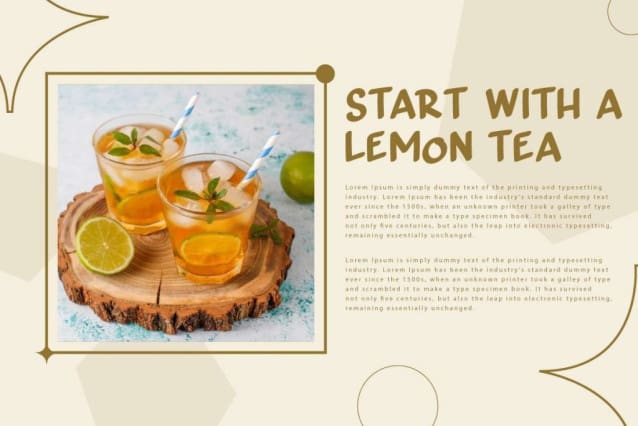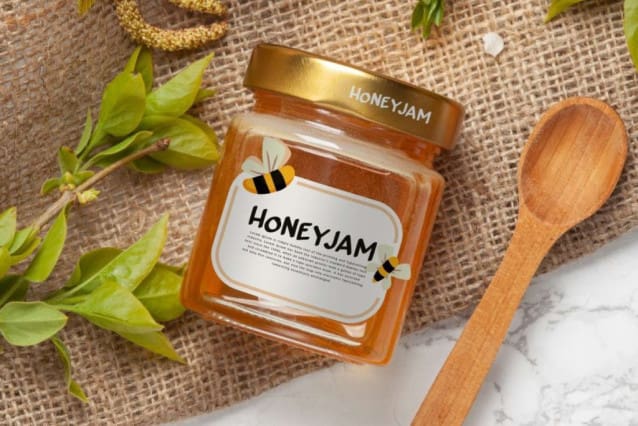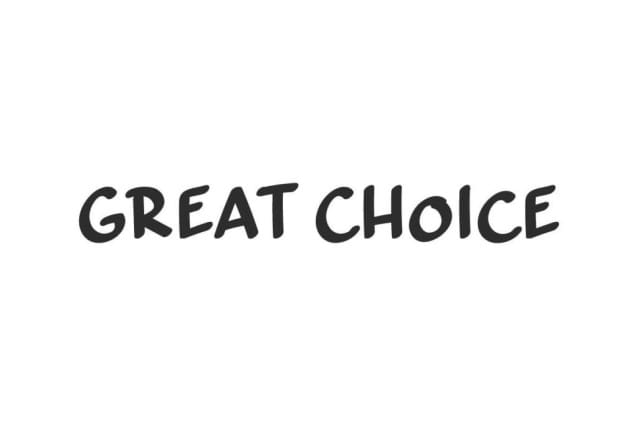
Great Choice Font
Great Choice Font is a playful handwriting display font. It is simple handmade giving your design an original look, such as apps, blogs, brand logo, brochure, cover, label, mockup, poster, product packaging, quotes, screen print, stationery, sticker, title, watermark, website, and many more!
Great Choice Font comes with a full set of ALL CAPS with a slight difference in size between Uppercase and Lowercase, Number, Punctuation, and Symbol. It will work well with and without other font types in combination. Use this for your business industries such as, artist, author, bakery, bee farmer, camping gear, clothing brand, fashion, handicrafts, household goods, perfume, printing, publishing, restaurant, skincare, spa, etc.